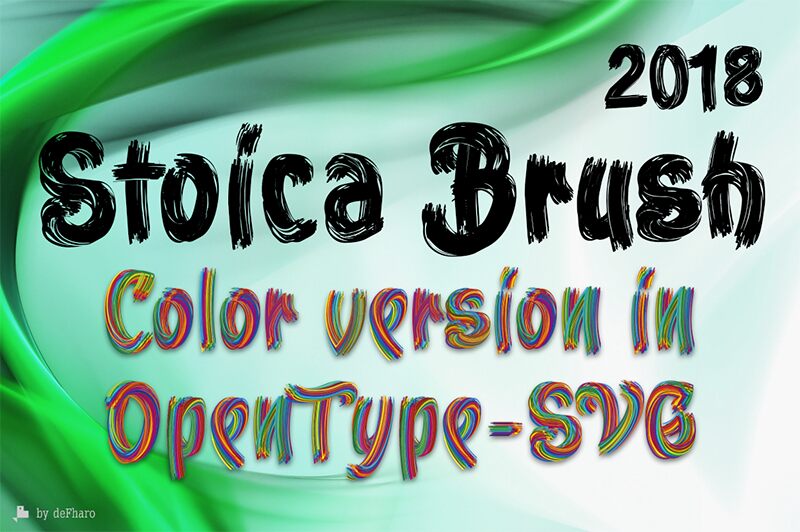
Stoica Brush
Stoica Brush: Vector version imitating the stroke of the Stoica Bitmap SVG Color Font.
Stoica Brush is a handwritten font, thick, condensed calligraphic style.